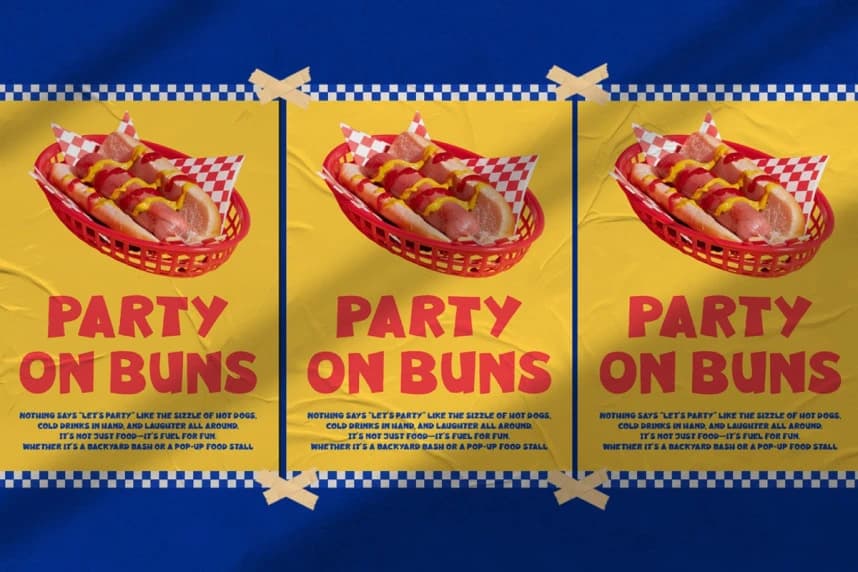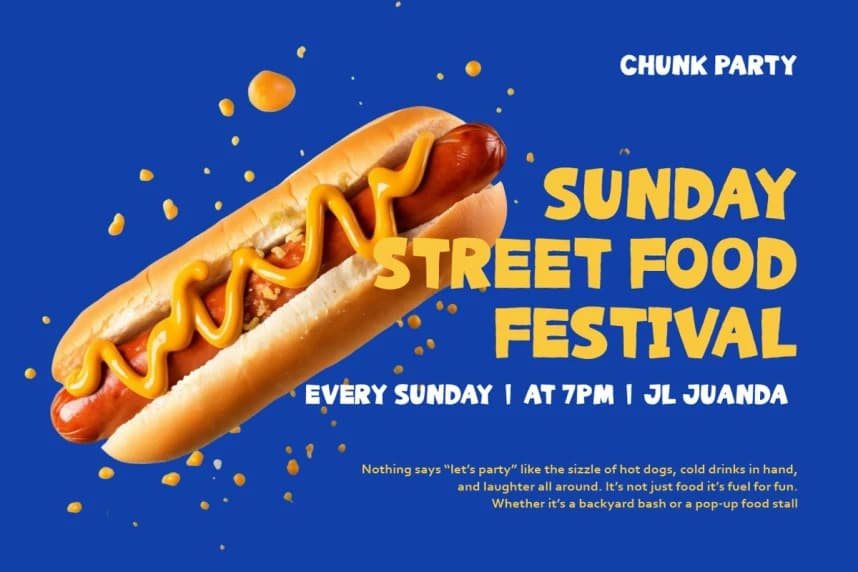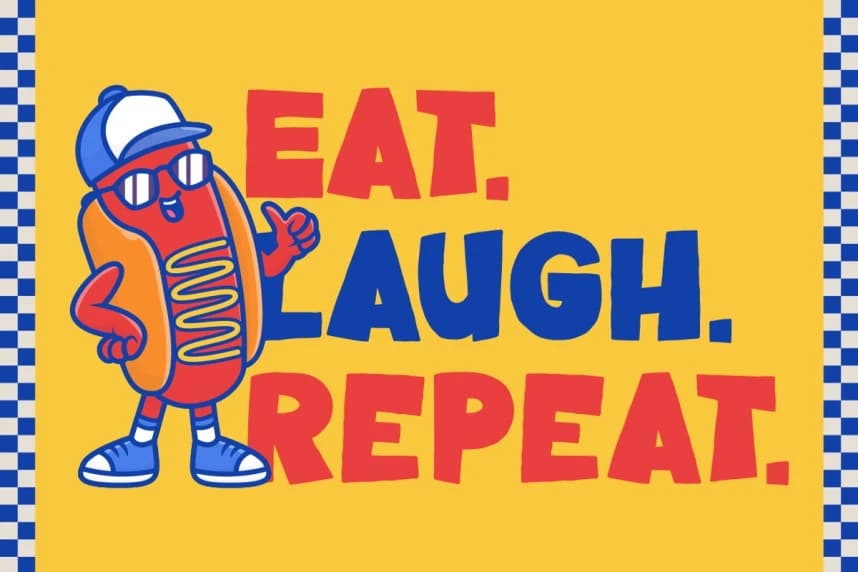
Chunk Party Font
Chunk Party Font brings a burst of flavor and personality to every design. The font features thick, uneven letterforms with playful edges that create a lively and dynamic appearance. Each character is bold and chunky, giving a handmade